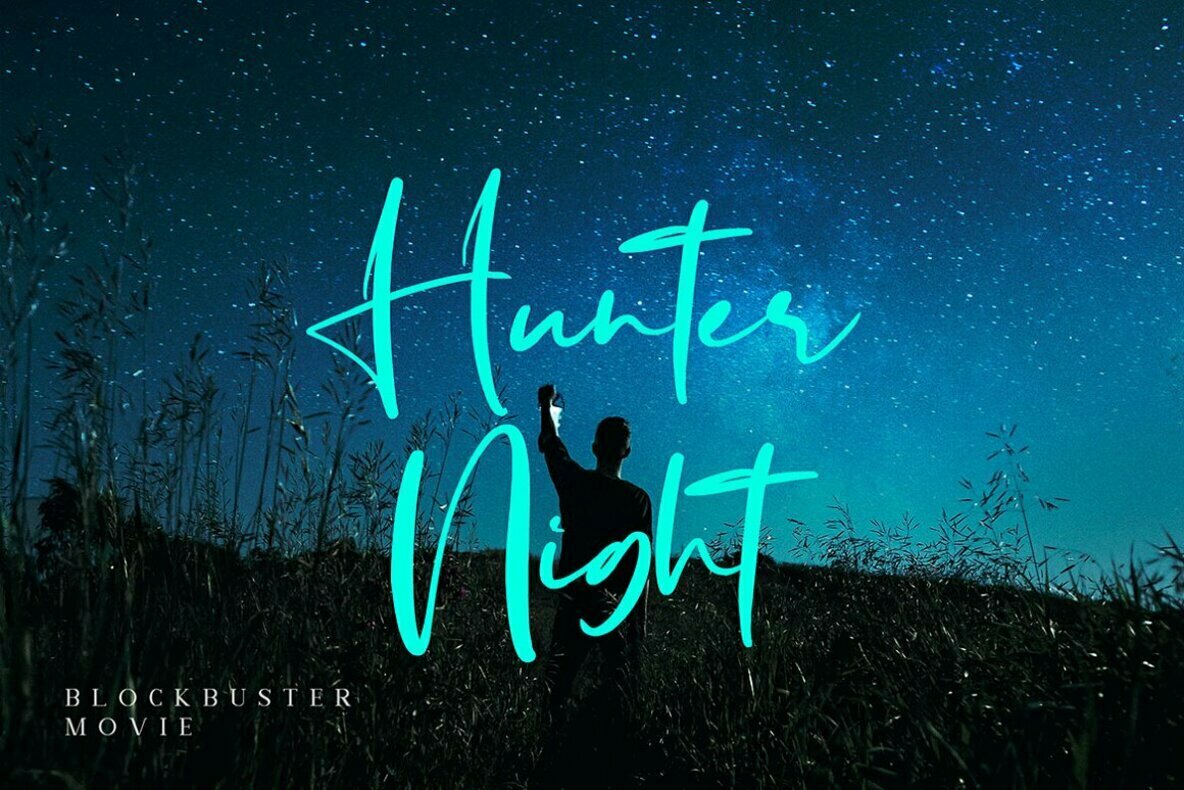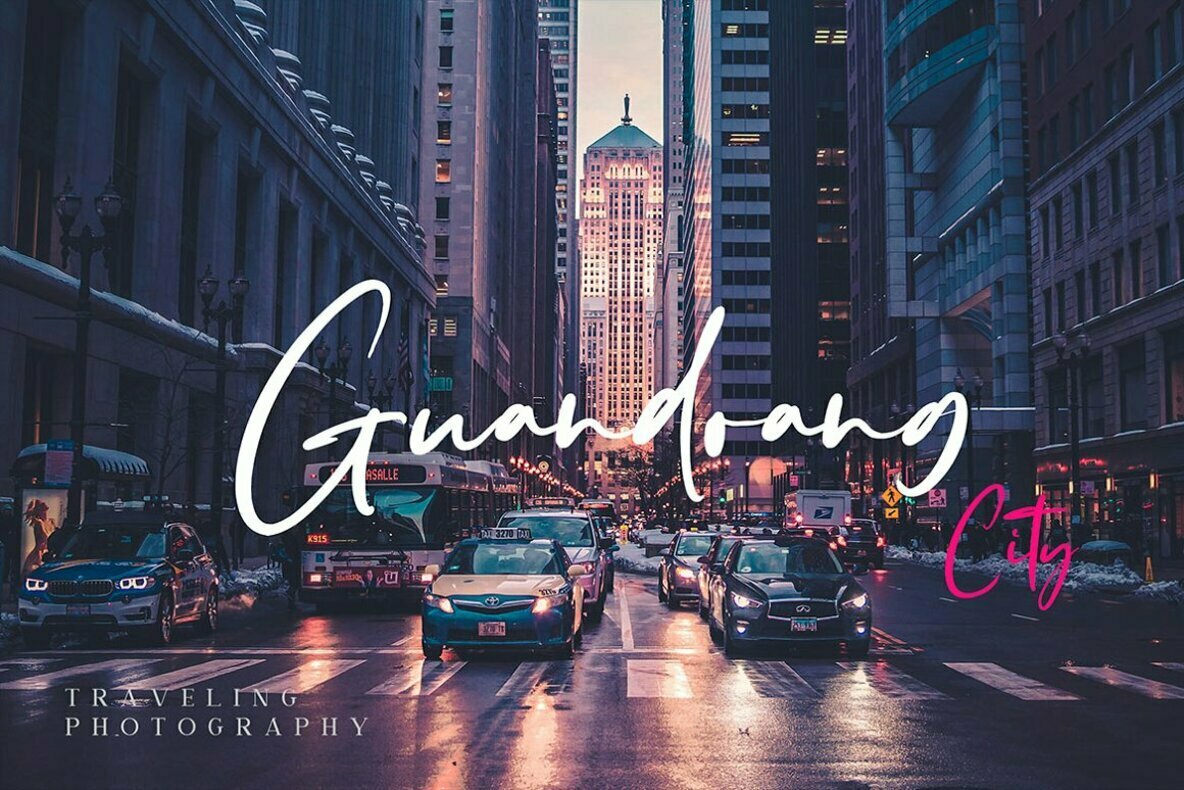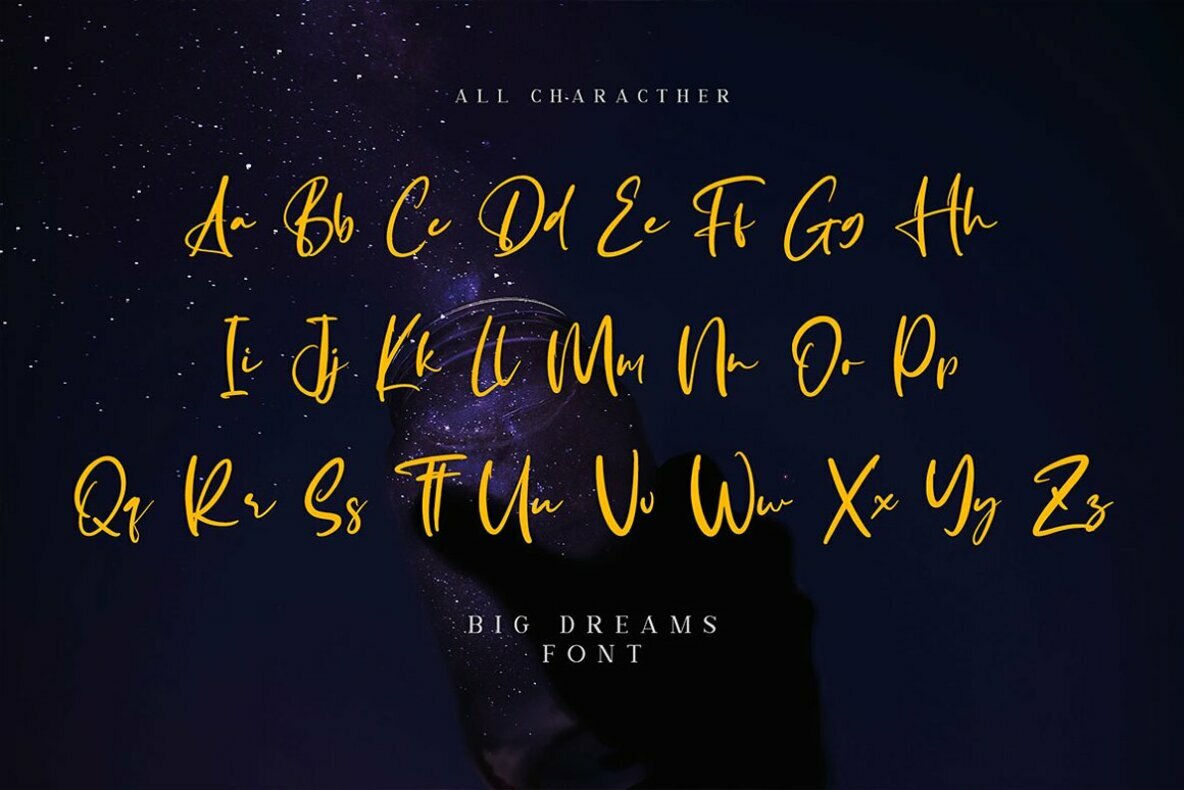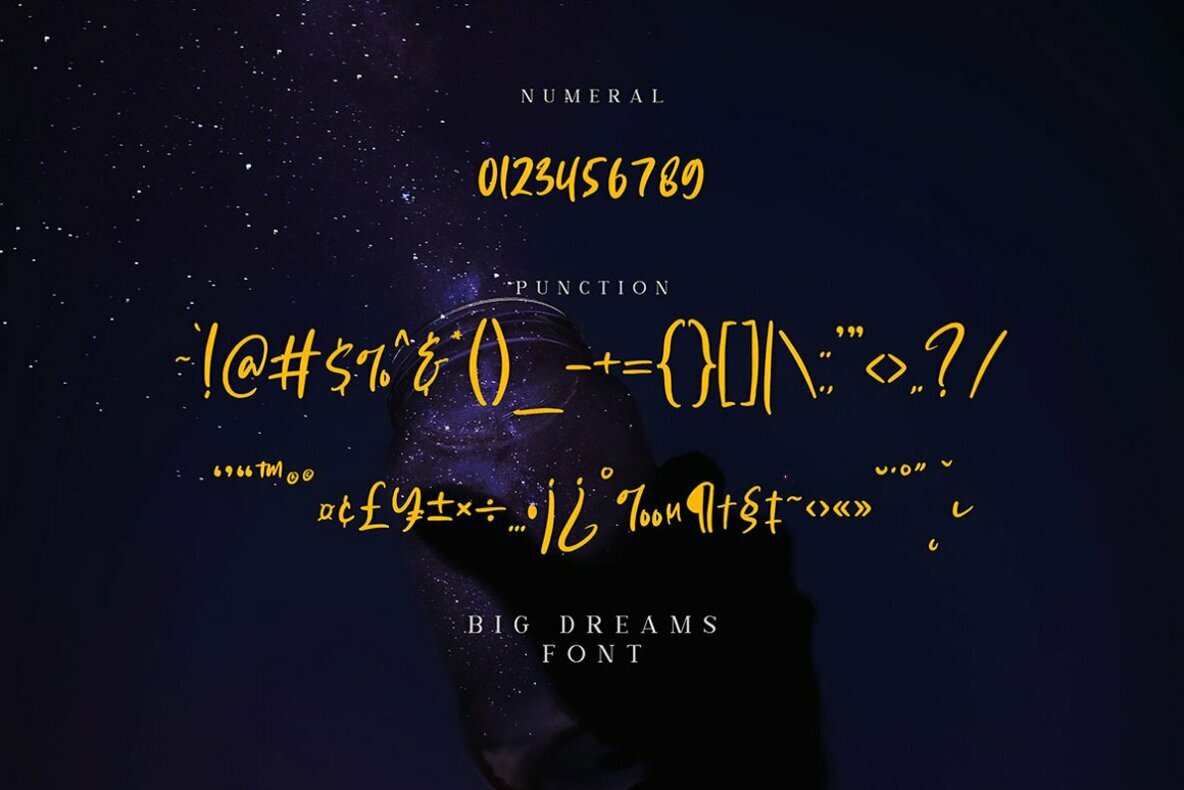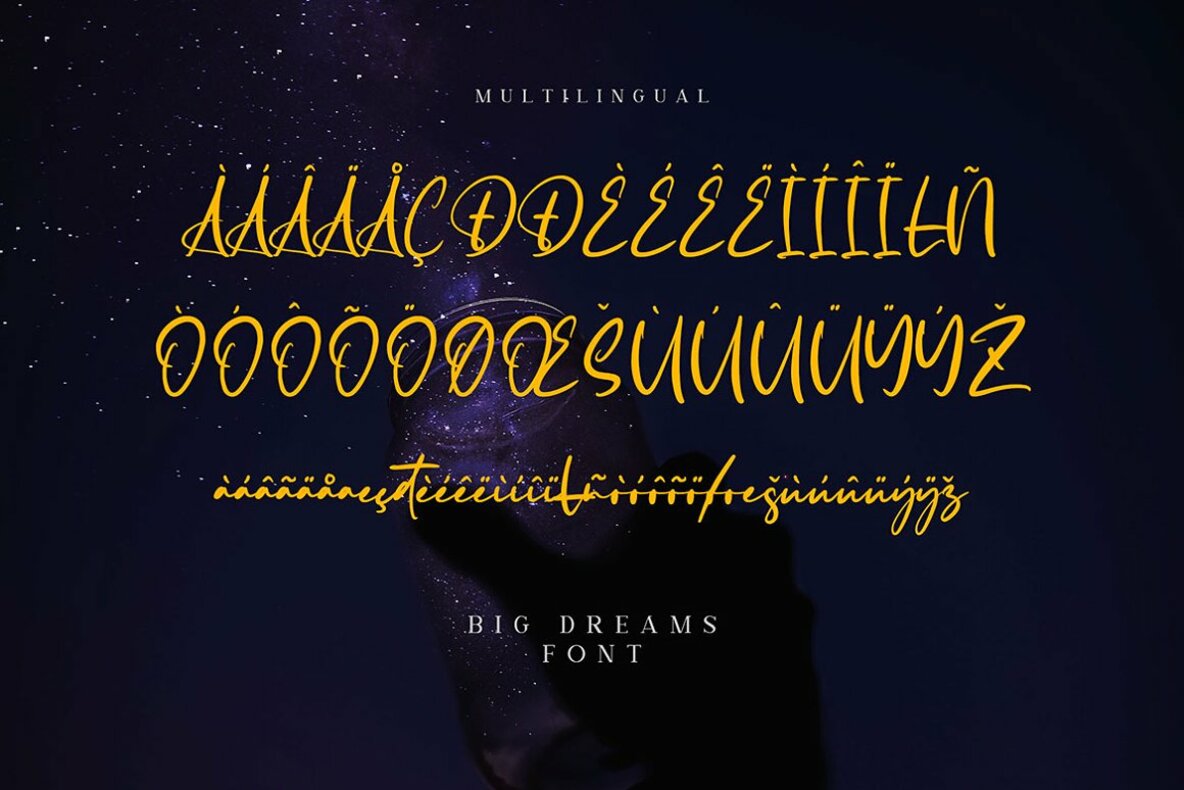
Big Dreams Font
Big Dreams
Infuse your designs with the subtle elegance of Big Dreams, a handwritten script font characterized by its casual yet sophisticated charm. This font seamlessly blends beauty with versatility, making it an ideal choice for projects that range from fashion and apparel to logos and branding. Its graceful strokes add a personal touch to your creative endeavors.Big Dreams: A Classy Handwritten Script